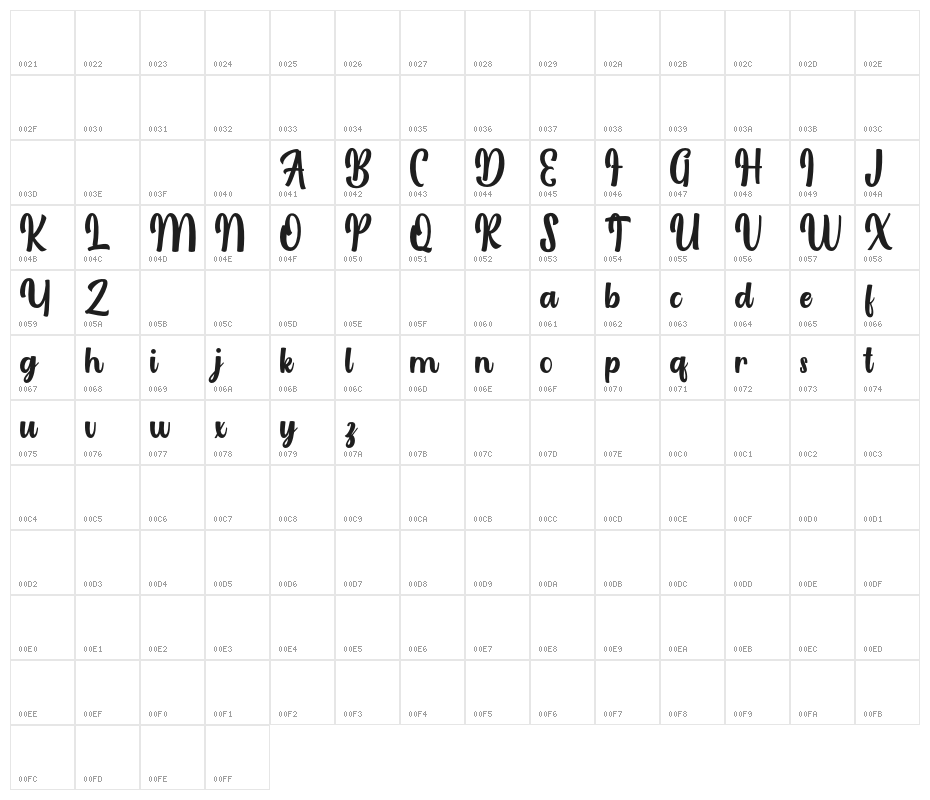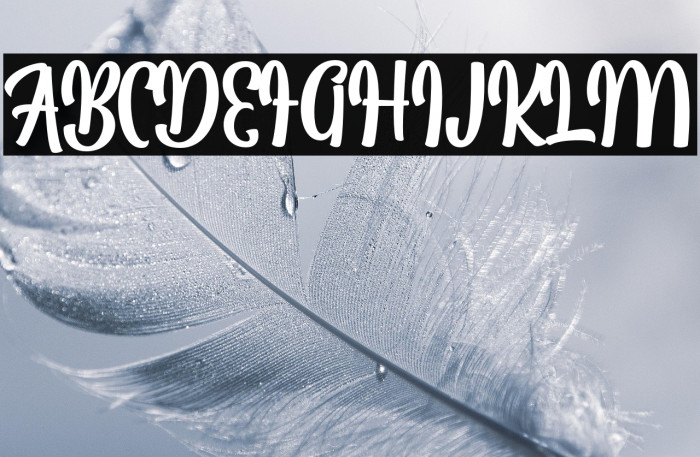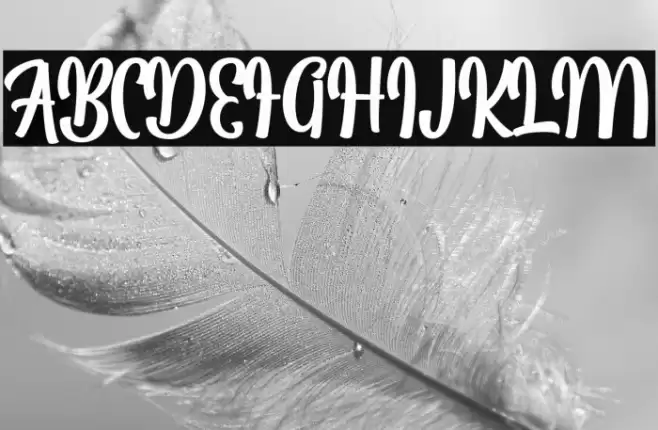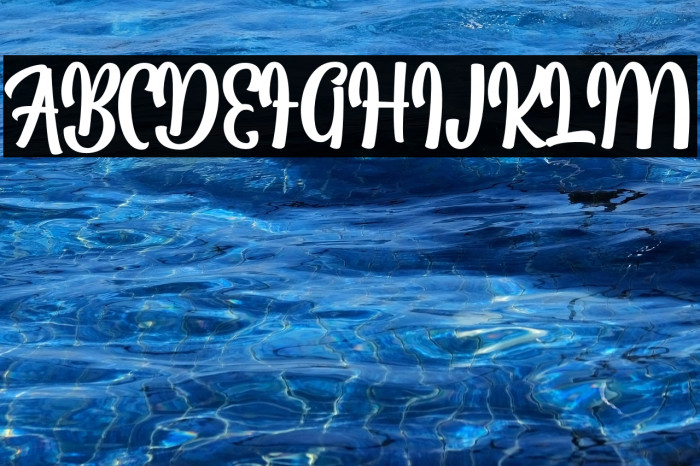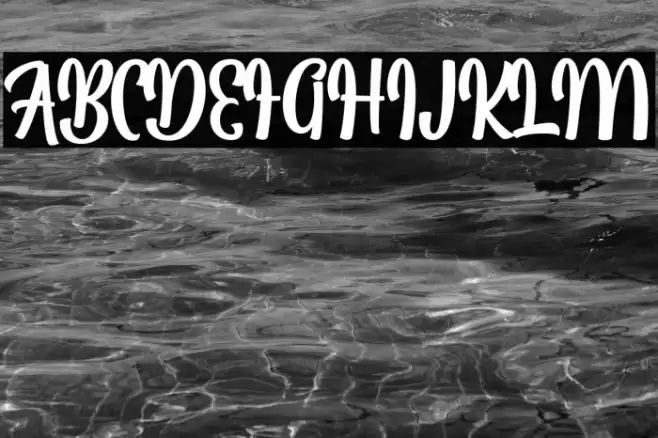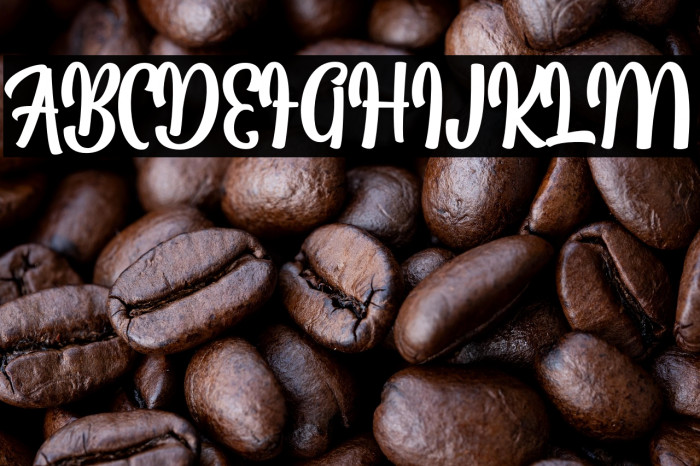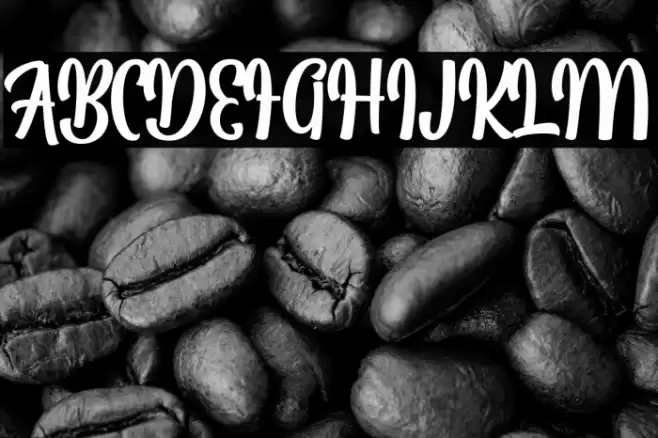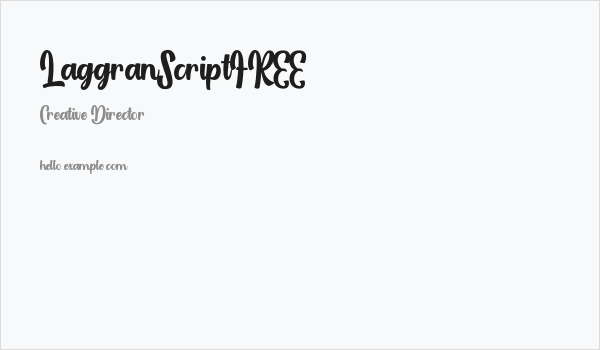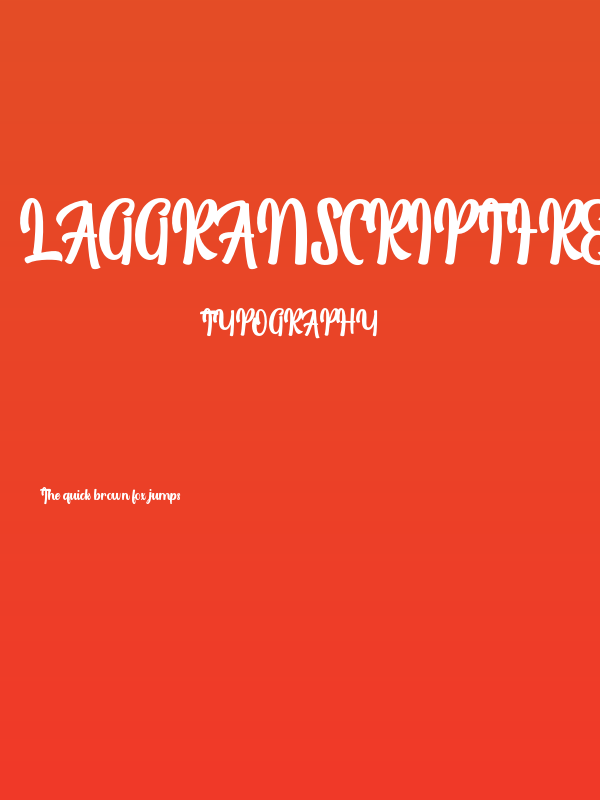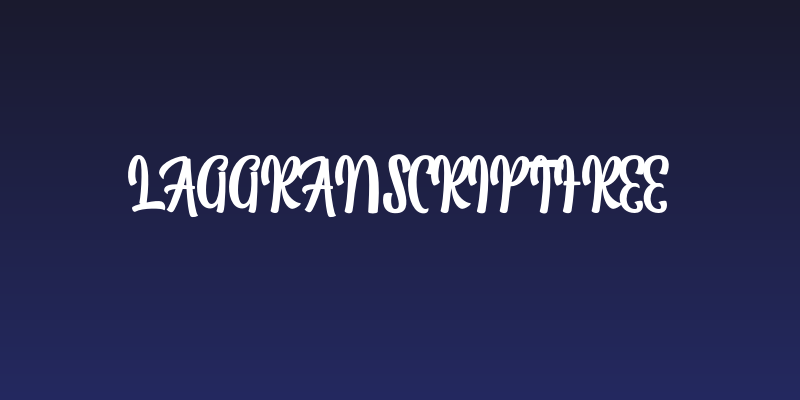
LaggranScriptFREE Font
LaggranScriptFREE Description
This font features a bold and expressive script style with a flowing, cursive design. The letters are interconnected, creating a seamless and dynamic appearance. The strokes are thick and consistent, giving the font a strong presence. The uppercase letters are elaborate, with decorative swashes and loops, while the lowercase letters maintain a more uniform and rounded shape. This font exudes a playful and artistic vibe, making it suitable for creative and informal applications. Its boldness ensures readability while maintaining an elegant and stylish look.
| Proposed Projects | Ideal for branding, invitations, greeting cards, and artistic projects. |